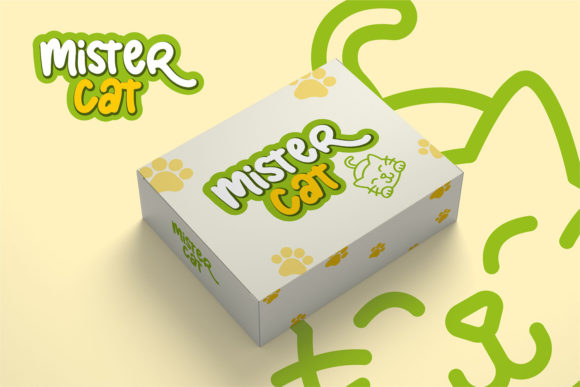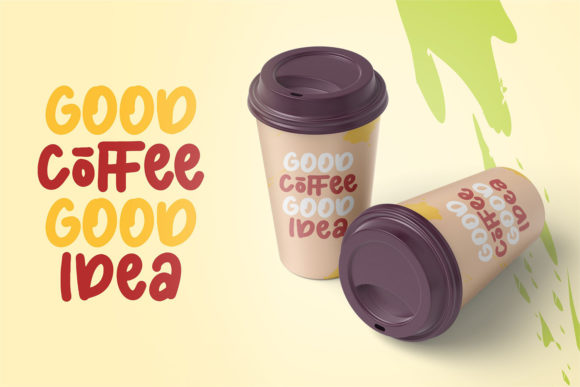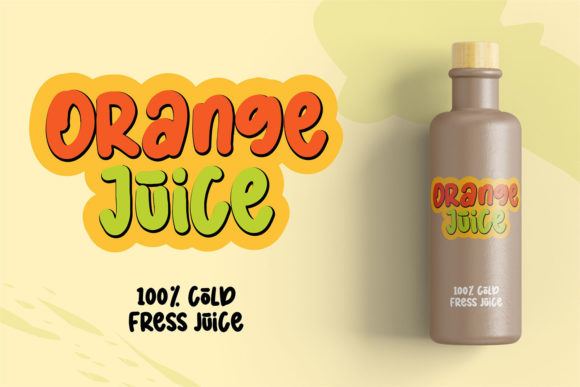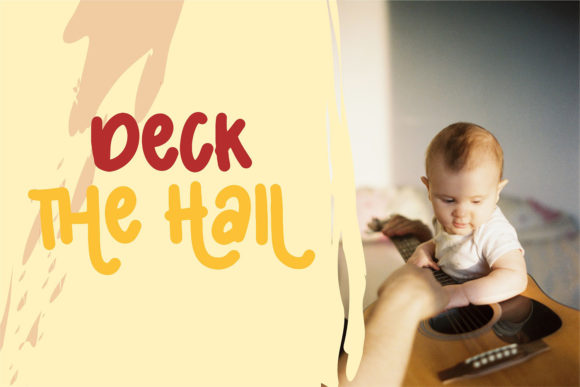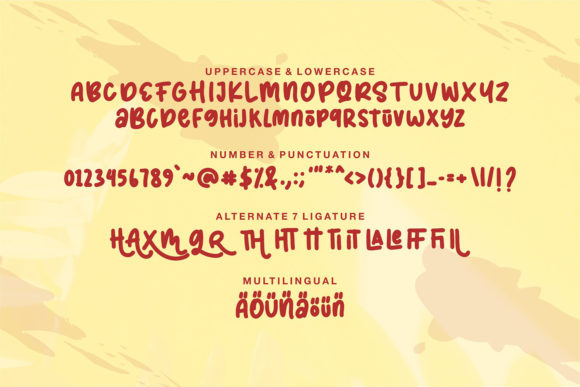
The Sweet Spot: Discovering the Joy of Gelato Font
I’ll never forget the time I was working on a children’s book project, and my client asked for a font that would make the story come alive. I scoured the internet, tried out dozens of fonts, but nothing seemed quite right. That was until I stumbled upon Gelato Font. It was like a breath of fresh air – cheerful, fun, and smart, with just the right amount of playfulness. In this article, I’ll share my experience with Gelato Font, and explore its features, uses, and alternatives.
- ✨ **Unique Character**: Gelato Font has a distinct personality that’s hard to find in other fonts. It’s perfect for designs that need a touch of joy and whimsy.
- ✅ **High Versatility**: This font can be used for a wide range of projects, from cartoon-related designs to quotes, titles, brand names, book covers, and posters.
- 💡 **Easy to Read**: Despite its playful nature, Gelato Font is surprisingly easy to read, making it perfect for body text and headings.
While Gelato Font is an excellent choice for many projects, there are a few things to keep in mind:
- 🤔 **Limited Formality**: Gelato Font is a display font, and as such, it’s not suitable for formal or professional projects that require a more serious tone.
- ⚠️ **Glyph Limitations**: While Gelato Font has a range of glyphs and OpenType features, it may not have every special character or symbol you need.
The Story Behind Gelato Font
While the origins of Gelato Font are unclear, it’s likely that it was designed with the intention of creating a fun and playful font that would bring joy to designs. The font’s creator may have been inspired by the colorful and lively world of gelato shops, with their bright colors and whimsical decorations.
Q: What is Gelato Font best used for?
A: Gelato Font is best used for designs that require a touch of joy and whimsy, such as children’s book projects, cartoon-related designs, and playful posters.
Q: Is Gelato Font easy to read?
A: Yes, Gelato Font is surprisingly easy to read, making it perfect for body text and headings.
Q: What are some similar fonts to Gelato Font?
A: Some similar fonts to Gelato Font include Pacifico, Great Vibes, Lobster, and Playfair Display.